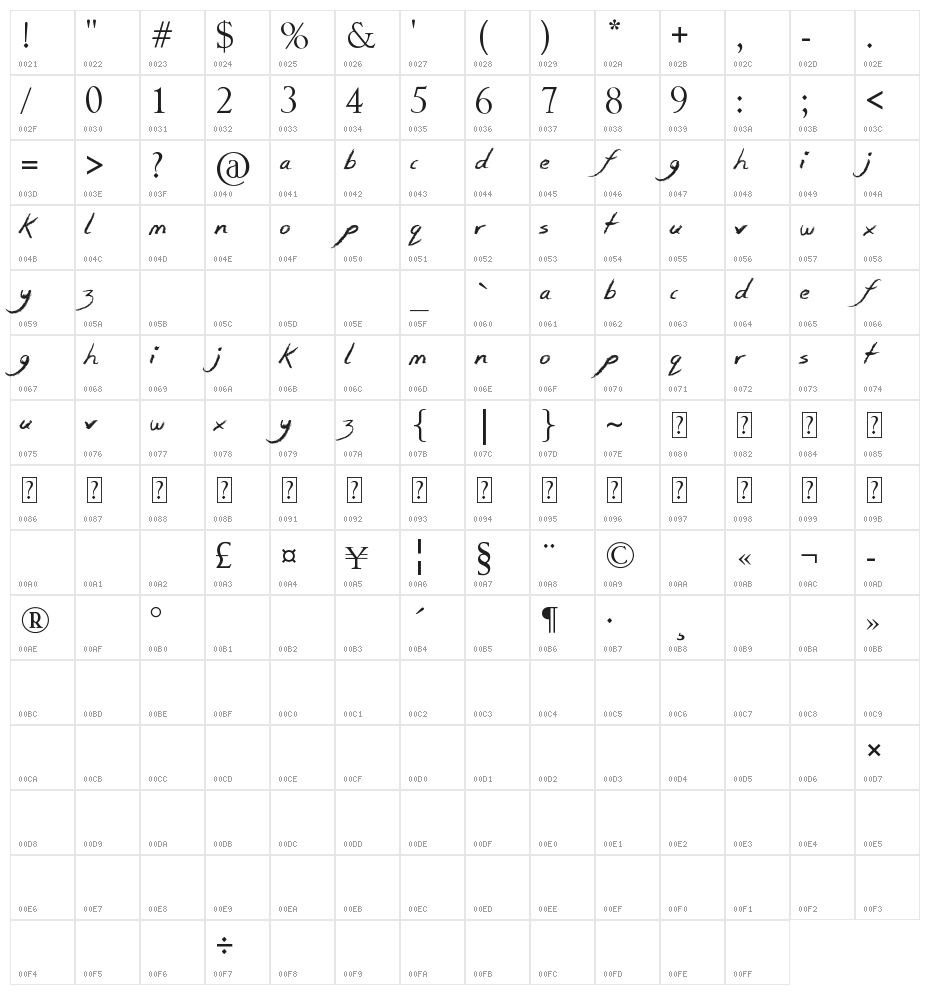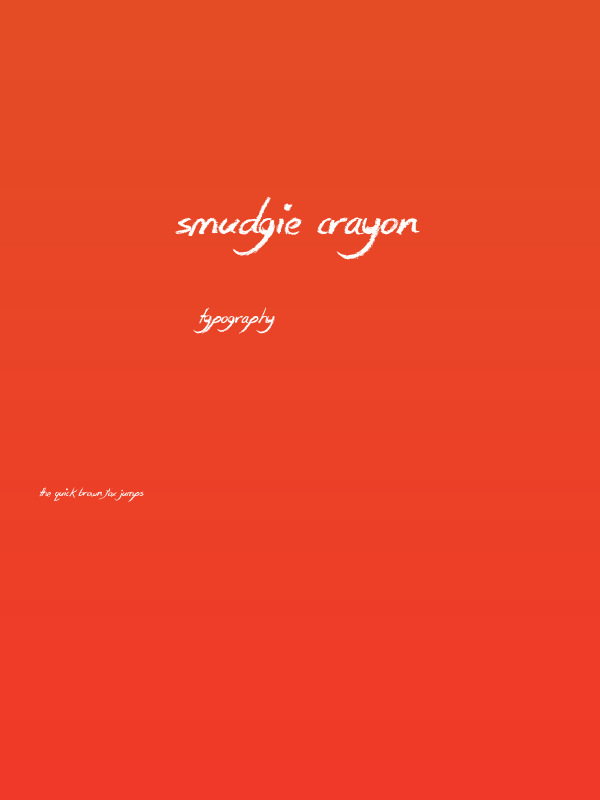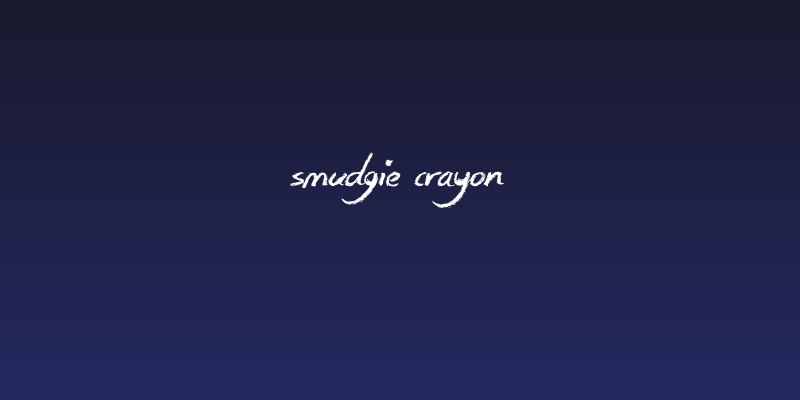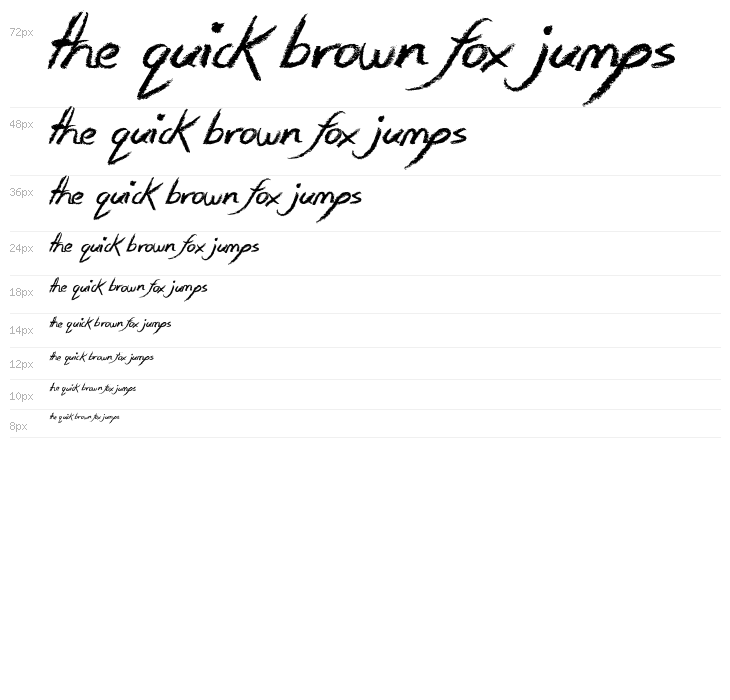
Smudgie Crayon Font
Smudgie Crayon Description
This font exhibits a playful and artistic style, reminiscent of hand-drawn crayon strokes. The letters are characterized by their irregular, textured edges, giving them a dynamic and lively appearance. The uppercase and lowercase letters flow together with a natural, cursive-like quality, while the numbers maintain a more structured form. The special characters are integrated seamlessly, maintaining the overall aesthetic. This font is ideal for projects that require a creative and informal touch, such as children's book covers, playful branding, or artistic posters.
Overall StyleArtistic, Playful
Use CaseHeadlines, Artistic projects, Informal text.
Proposed ProjectsChildren's books, creative branding, artistic posters, informal invitations.